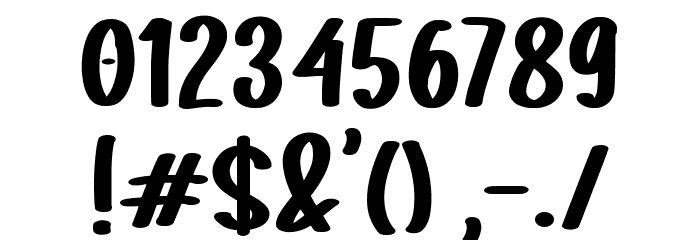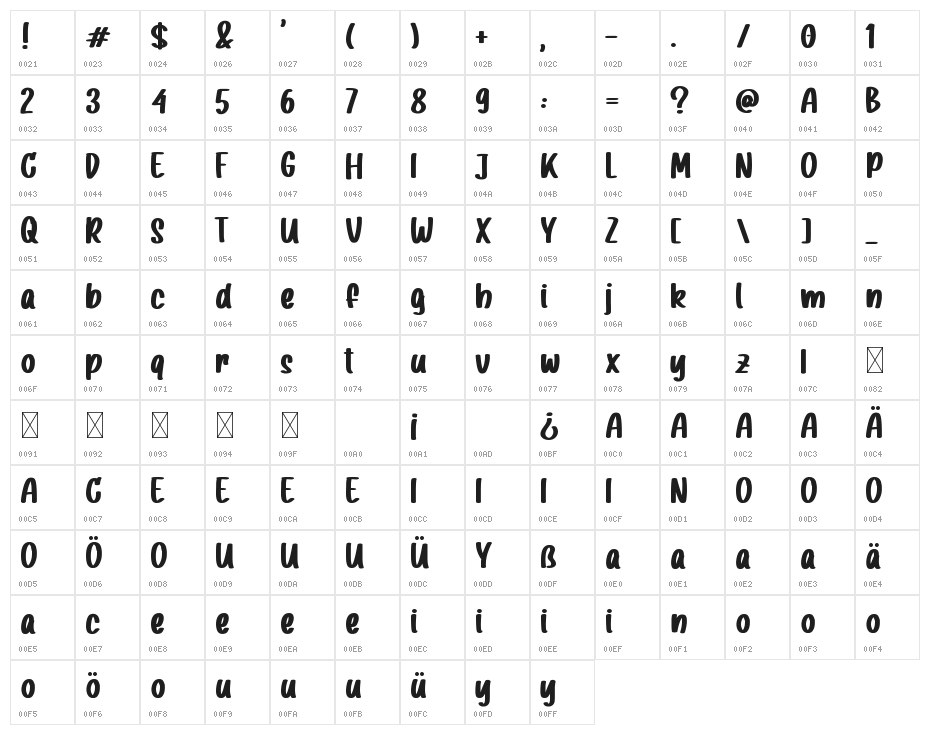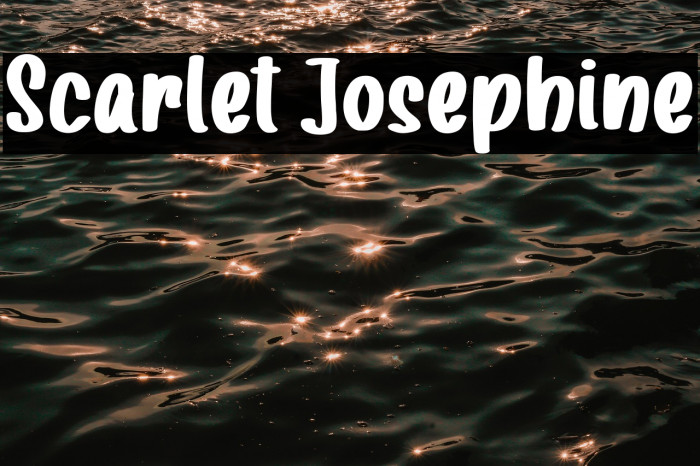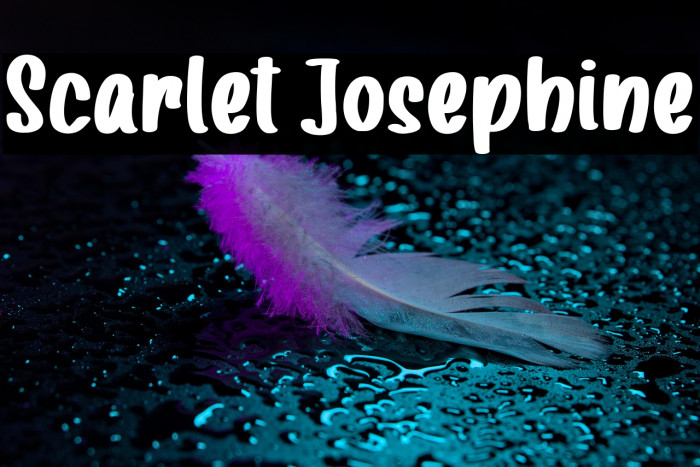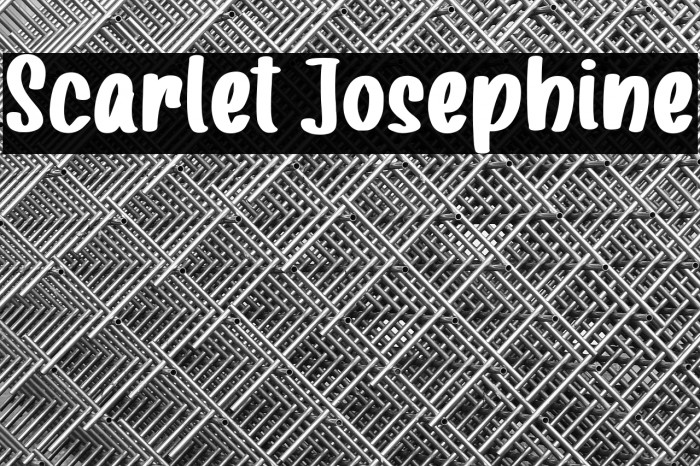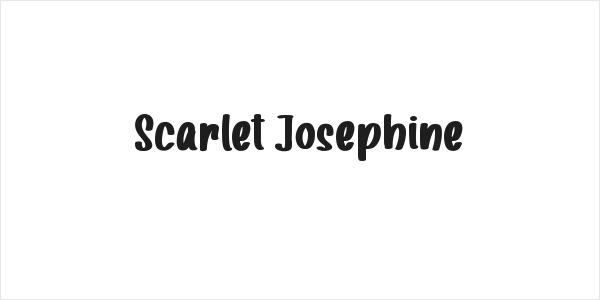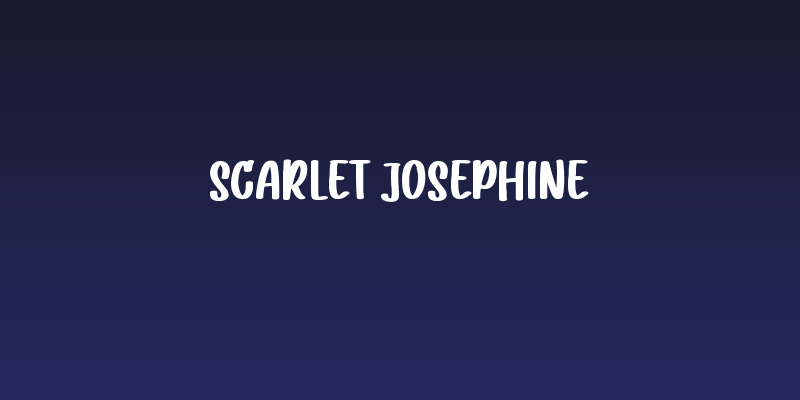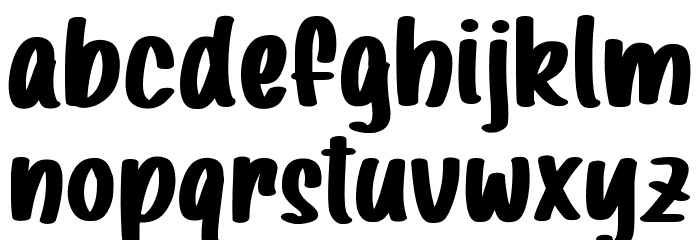
Scarlet Josephine Font
Scarlet Josephine Description
This font exudes a playful and bold character, featuring thick, rounded strokes that give it a lively and energetic appearance. The letters are slightly condensed, contributing to a compact and cohesive look. The uppercase and lowercase letters maintain a consistent style, with smooth curves and a hand-drawn feel. The numbers and special characters follow the same design principles, ensuring uniformity across all glyphs. This font's casual and friendly demeanor makes it ideal for projects that require a touch of personality and approachability.
| Proposed Projects | Perfect for children's books, playful branding, casual invitations, and social media graphics. |